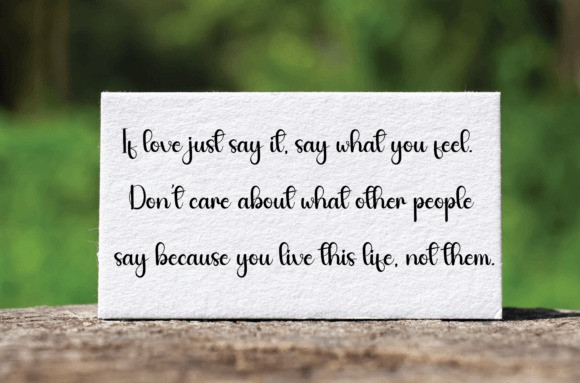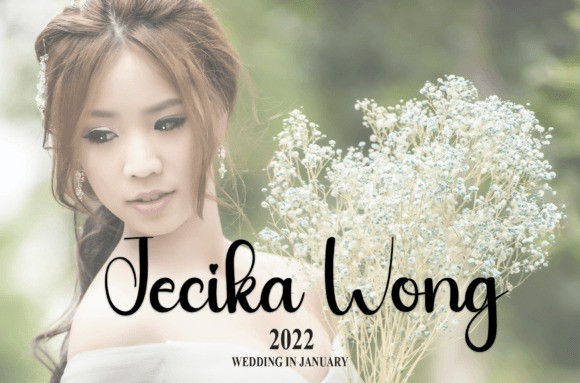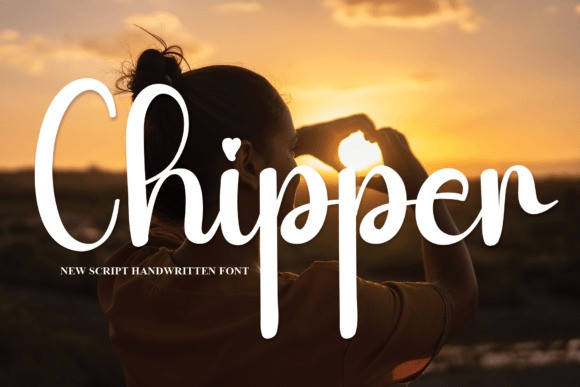
Chipper Script Font
Chipper Script Font is a sweet and friendly handwritten font. Fun and relaxed, this font is ideal for writing wedding invitations, cards, or any other design that might need a lovely touch!